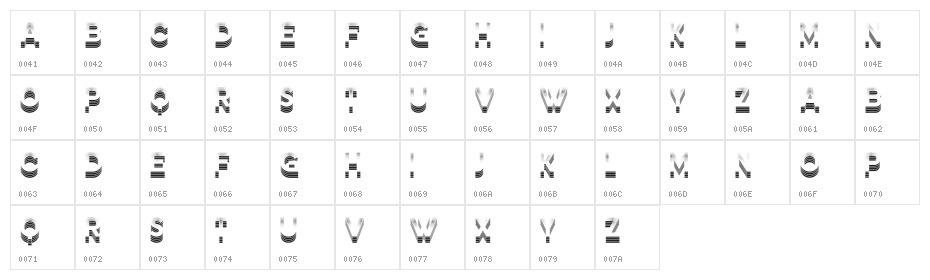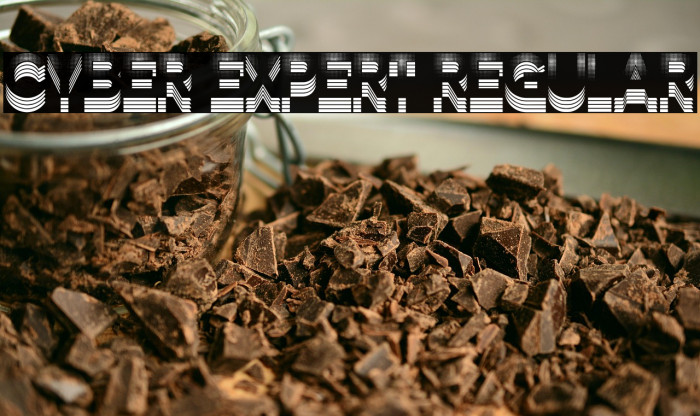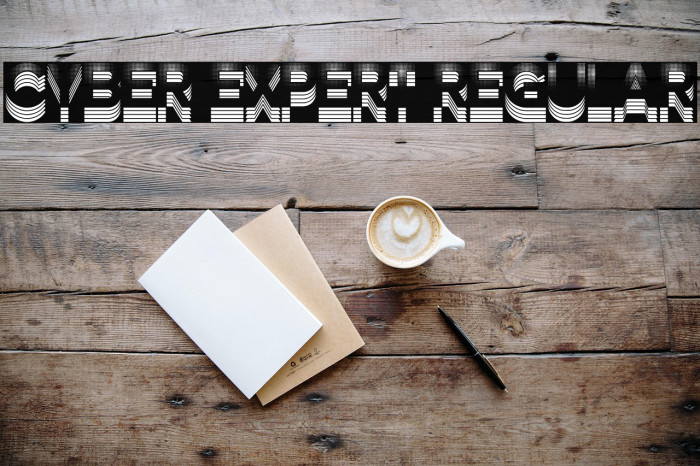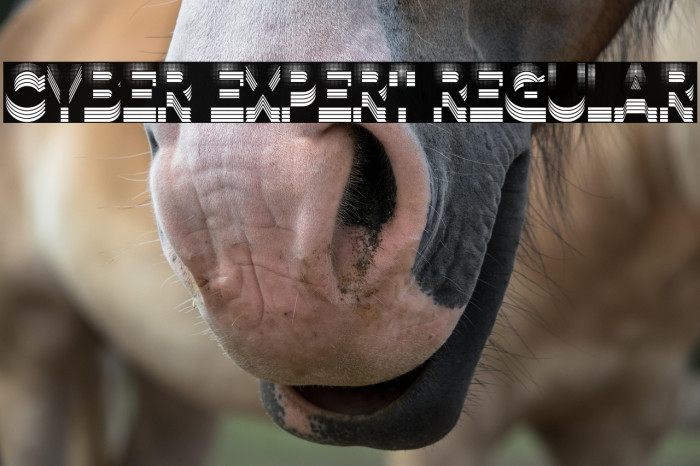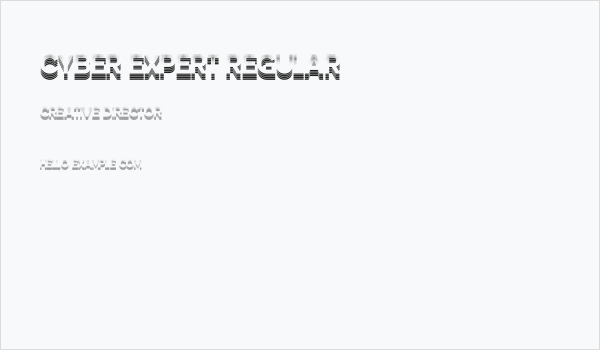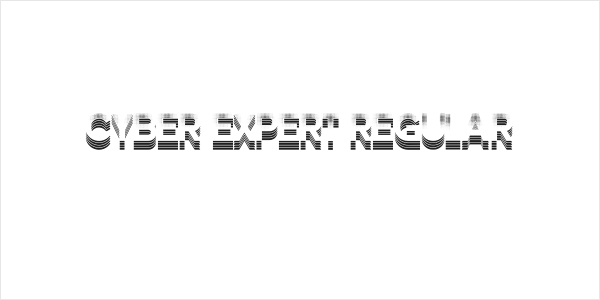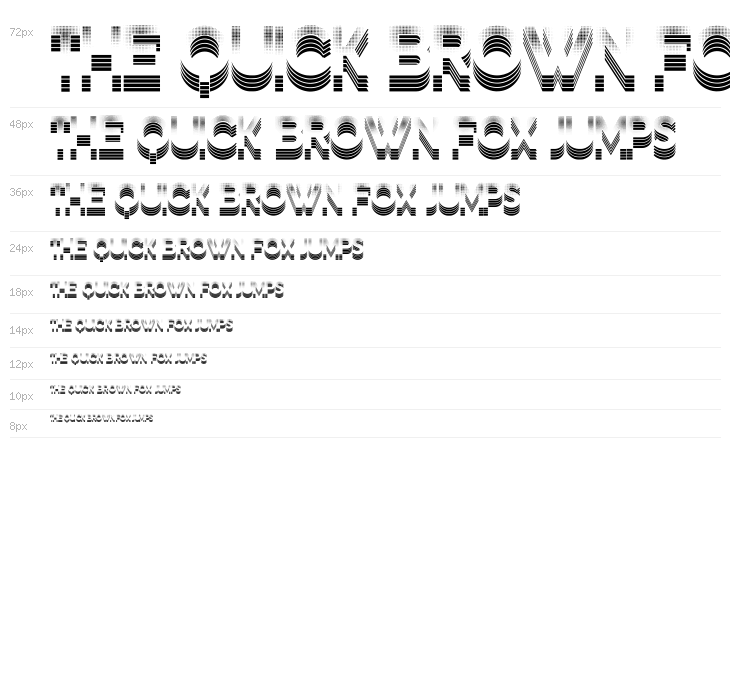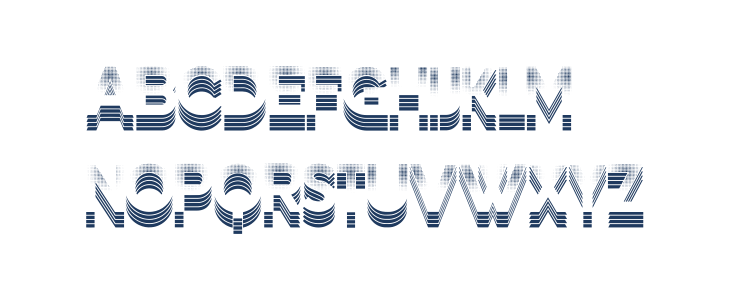
Cyber Expert Regular Font
Cyber Expert Regular Description
This font features a futuristic and digital aesthetic, characterized by its layered, striped design that creates a sense of depth and movement. The letters are bold and geometric, with a unique pattern that resembles digital glitch effects or electronic circuits. The use of horizontal lines and dots adds a dynamic, high-tech feel, making it stand out as a modern and innovative typeface. The uppercase letters are particularly striking, with each character maintaining a consistent width and height, contributing to a uniform appearance. This font is ideal for projects that require a cutting-edge, technological vibe.
| Proposed Projects | Ideal for technology branding, sci-fi movie posters, video game titles, and digital art projects. |